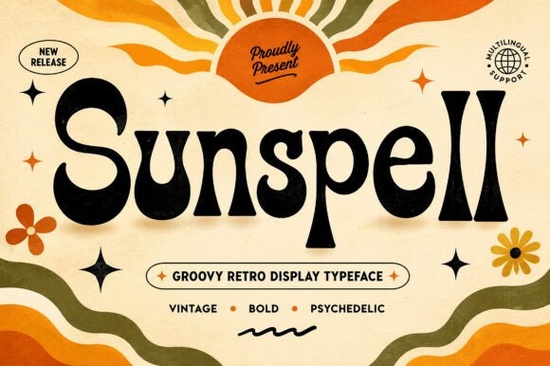
If you’re looking for a display typeface that instantly adds warmth and a hint of psychedelic charm, Sunspell is worth a close look. Sunspell Font is a bold retro display design rooted in the groovy, free‑spirited aesthetic of the 70s. Its flowing curves, dramatic contrast, and playful letter shapes give every word a handcrafted vintage personality that suits projects needing character and a strong visual identity.
What projects work best with Sunspell?
Sunspell thrives wherever you need a big, magnetic headline. It’s not a text font you’d use for long paragraphs it’s meant to shout from posters, packaging, and apparel. Designers and small business owners reach for it when they want an instant nostalgic mood without looking outdated.
Some of the most common uses include:
- Vintage band posters and album cover art
- Logo design for brands with a retro personality
- Packaging labels for craft beverages, snacks, or handmade goods
- T‑shirt graphics and print‑on‑demand merch
- Book covers for memoirs or 70s‑inspired fiction
- Social media quote graphics and event promos
- Editorial headlines in magazines and mood boards
Because the letterforms feel organic and slightly irregular, Sunspell adds a human touch that clean geometric sans‑serifs often miss. It’s especially effective on products aimed at a creative, nostalgic audience.
This means you can set everything from bold headlines to smaller subheadings without losing the cohesive vintage voice. All glyphs share the same bouncy rhythm, so even short phrases look carefully composed.
How does Sunspell compare to other retro display fonts?
Retro display fonts can vary wildly in tone some lean into a groovy, liquid style while others go heavier and more distressed. Sunspell sits in a sweet spot: it’s bold and expressive but still readable at larger sizes. If you enjoy fonts with hand‑drawn charm, you might also explore a similar option like Grinched 20. That typeface (we have a closer look on our Grinched 20 display font page) shares a playful, almost whimsical edge but feels a bit more seasonal and grungy. Sunspell, by contrast, keeps the vibes sunny and fluid, making it easier to apply across a wider range of products.
For a crisper pairing, many designers turn to a clean sans‑serif like College Black. You can see its straightforward, athletic letterforms on our College Black font resource. When placed next to Sunspell’s curvy shapes, the contrast creates a balanced layout that feels intentional and modern.
Can I use Sunspell on merchandise and print‑on‑demand products?
Absolutely Sunspell is built for this. Its thick strokes and generous spacing hold up well on fabric, mugs, and posters. Whether you’re designing for a Redbubble store or preparing client merch, the font’s bold presence translates beautifully to physical goods. Just make sure you check the exact license terms from the marketplace; for most POD platforms, the standard commercial license included with the purchase is enough, but it’s worth a quick confirmation if you’re scaling up to major production runs.
Which fonts pair well with Sunspell?
Pairing Sunspell is all about balance. Because it’s so full of personality, you want secondary type that steps back and supports the main message. Two solid strategies:
- Neutral sans‑serif – A clean, no‑fuss font gives the eye a place to rest. The Designer typeface (you can find a detailed breakdown on our Designer font summary) offers a sleek, modern structure that lets Sunspell’s curves do the emotional work.
- Themed supporting script – For seasonal projects, you might introduce a holiday‑specific font. Our Welcome Christmas display font spotlight shows how a festive, hand‑lettered style can sit above or below Sunspell’s headline without competing. I’ve seen this work nicely on greeting card covers where you want two distinct vintage moods in one design.
When mixing, keep Sunspell as the hero. Use it for the main word or phrase, and let the supporting font handle details like dates, URLs, or short descriptive text.
Is Sunspell the right choice for your next project?
If you’re a crafter creating iron‑on vinyl decals, a small business refreshing your retro brand, or a print‑on‑demand seller adding new designs, Sunspell offers a lot of flexibility. It’s not overly niche the sunny disposition works for music festivals, café menus, self‑care product labels, and even candid social posts. The font conveys enthusiasm without shouting, making it just as useful for a feel‑good apparel line as for a handcrafted soap label.
Before you commit, think about the overall look you want. Sunspell leans organic and groovy, not sleek or futuristic. If your brand voice includes words like warm, friendly, or nostalgic, it will gel naturally. If you need something cooler and more minimal, a font like College Black might be a better starting point, and you can always bring Sunspell in for special campaigns.
- Preview the font next to a clean sans or simple script to see the contrast in motion.